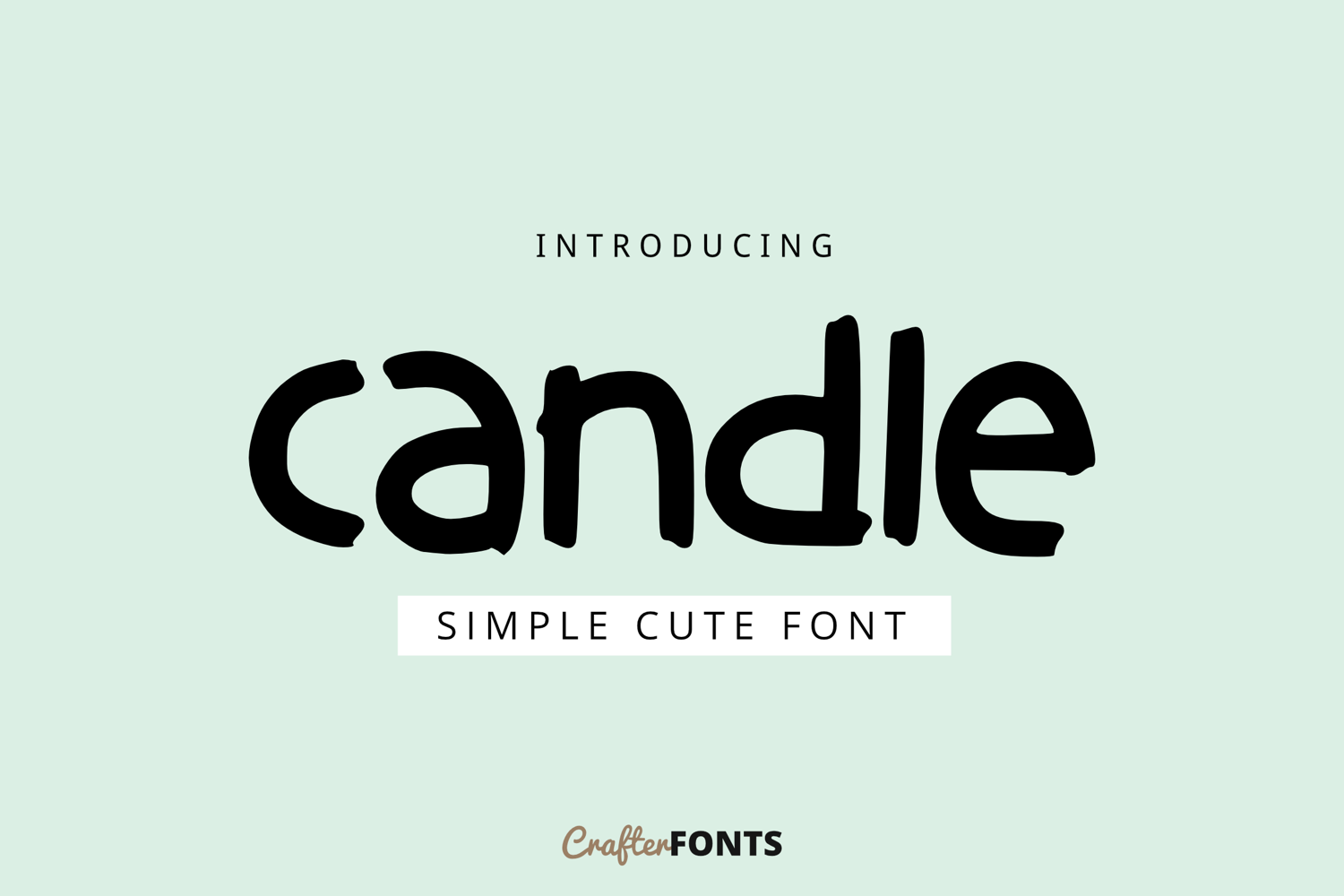
Candle Font
Candle Regular
Candle – Simple Cute Font
Brighten up your designs with Candle, a simple and cute display font featuring a friendly, playful, and charming handwritten style. With its thick, soft strokes and casual look, it is perfectly suited for children's books, school projects, greeting cards, nursery branding, cute logos, and playful packaging designs.